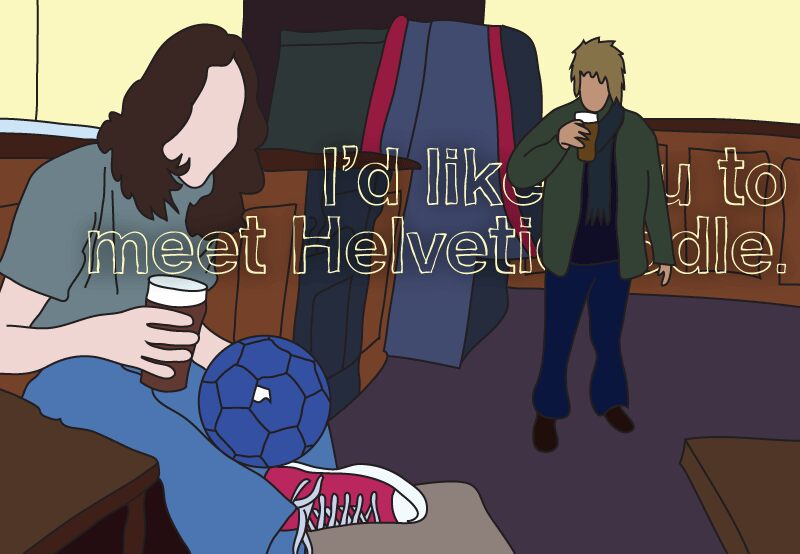
Helvetidoodle Outlines is a free cartoon outline display font with loosely drawn contours and familiar sans serif shapes. The uneven double lines give every letter a sketched quality.
Its hollow, doodled forms can echo pen-and-ink illustration on children's posters and activity sheets. They also suit snack packaging and playful event graphics, especially when lettering looks drawn into the artwork. In publishing, it can turn cover lettering into part of an illustrated scene.
Edward Townend is a freelance graphic designer in South Yorkshire, UK. Helvetidoodle was created using a graphics tablet and includes uppercase and lowercase letters, numbers, punctuation, and symbols.